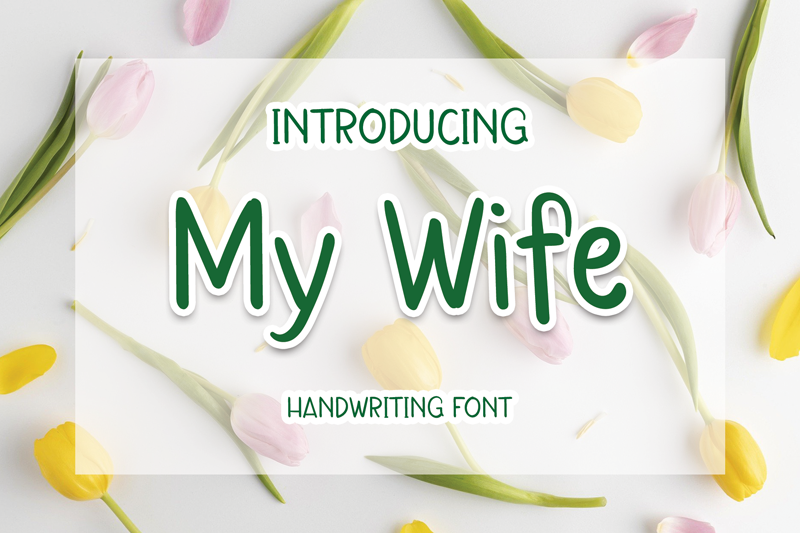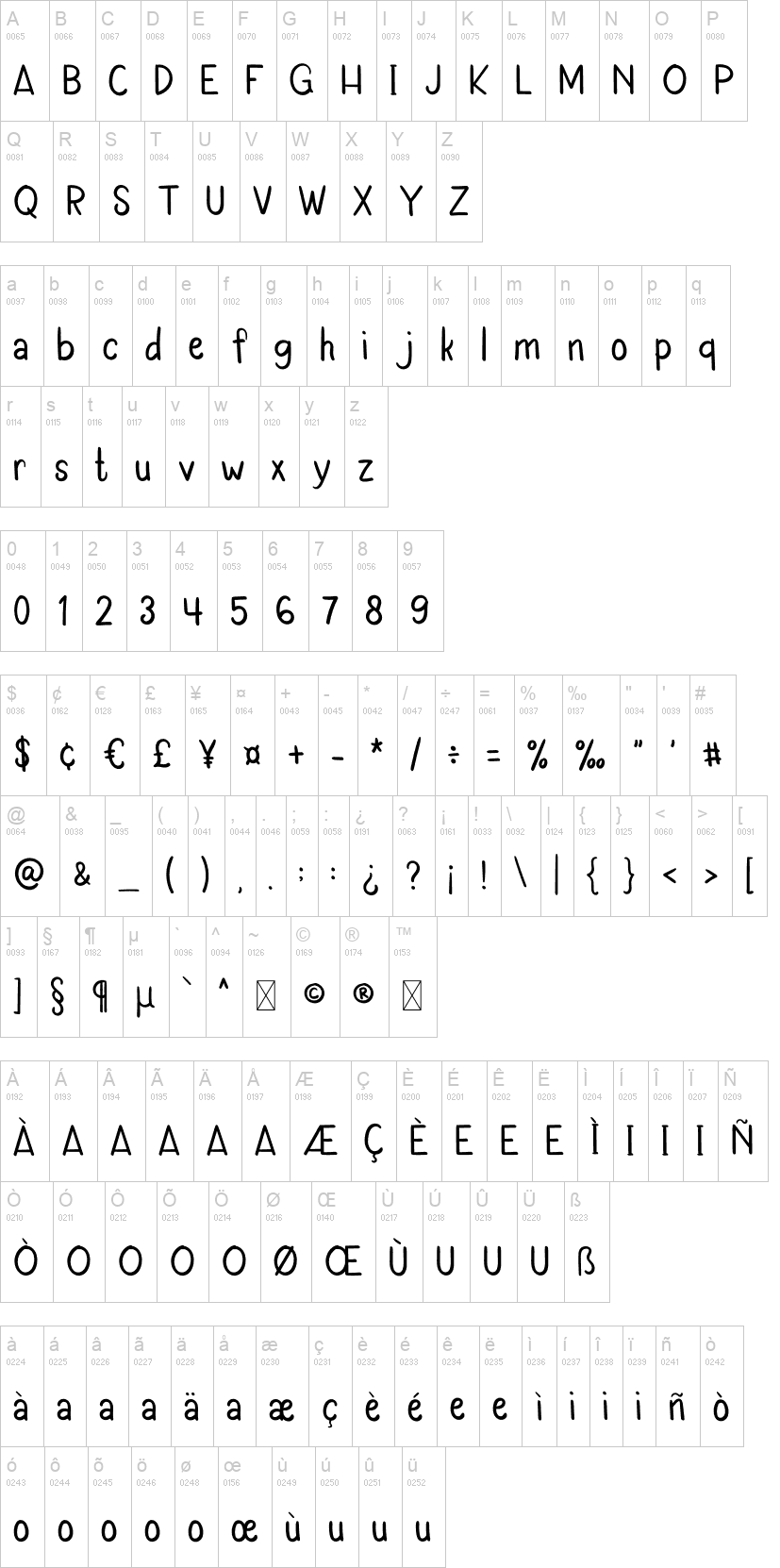
Note of the authorMy Wife is a fun and playful handwritten font. Clean and natural, this font is the perfect fit for all of your letter, branding, social media, and crafty DIY projects.